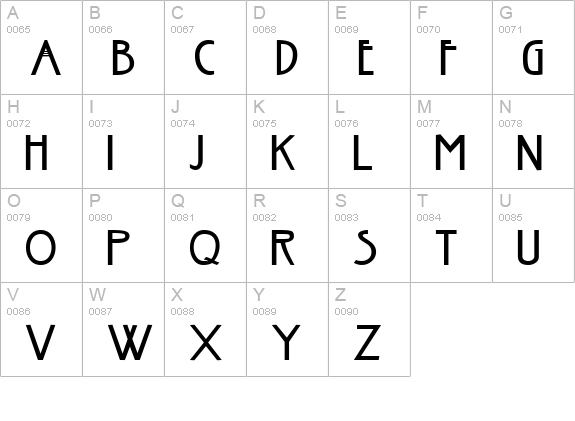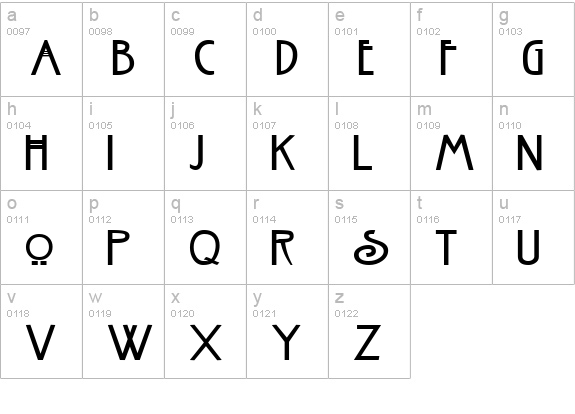
Fanzee Normal Font Details
Fanzee Normal is the standard, neutral variant in the Fanzee typeface family \xE2\x80\x94 well suited to general body text, paragraphs, and standard typographic work.
Fanzee Normal font is a versatile and stylish typeface designed to make your text stand out. With its clean lines and modern aesthetic, this font is perfect for a wide range of design projects, from branding to web design. The sleek, contemporary look of Fanzee Normal font will add a touch of sophistication to any piece of work. What's even better is that Fanzee Normal font is available for free download at FontsMarket.com. Yes, you read that right - this high-quality font can be yours at no cost. So why wait? Elevate your designs with Fanzee Normal font today and see the difference it makes in your projects.